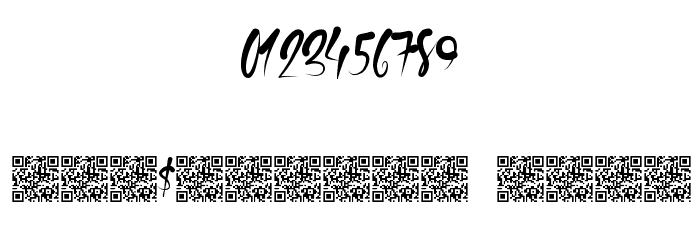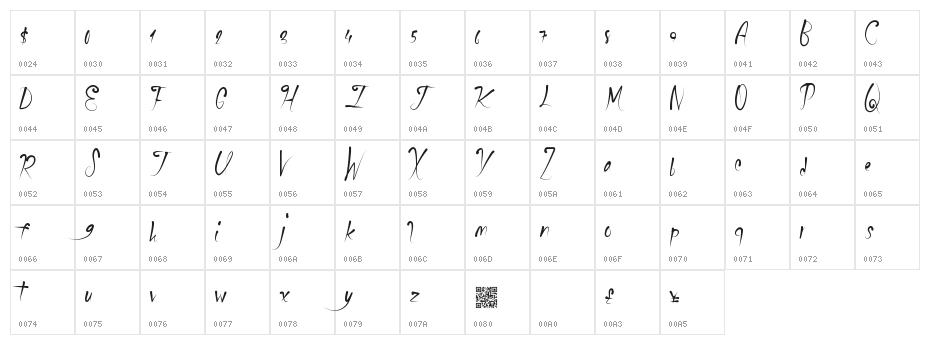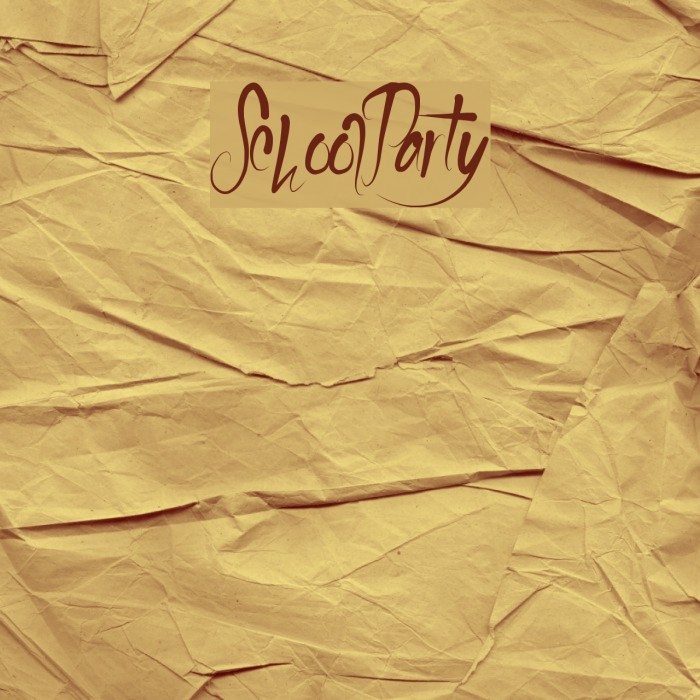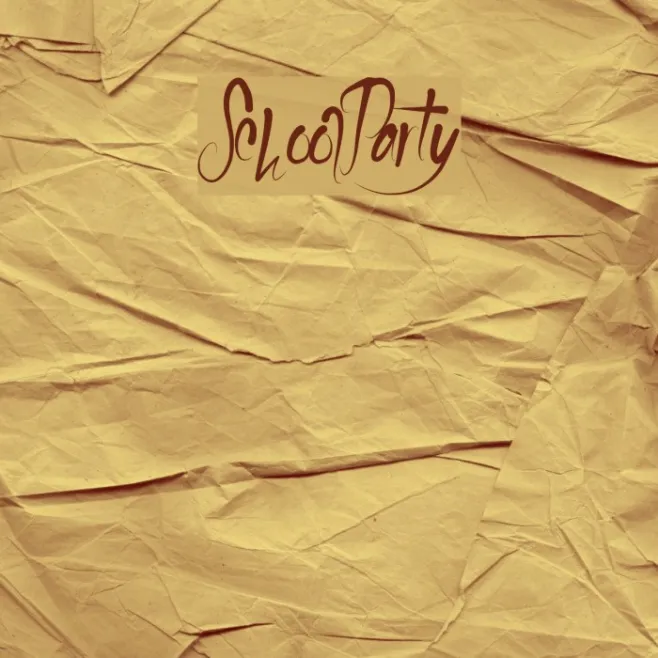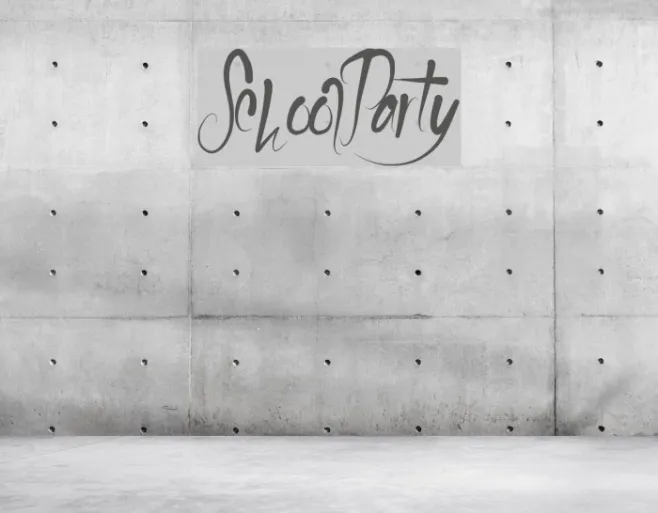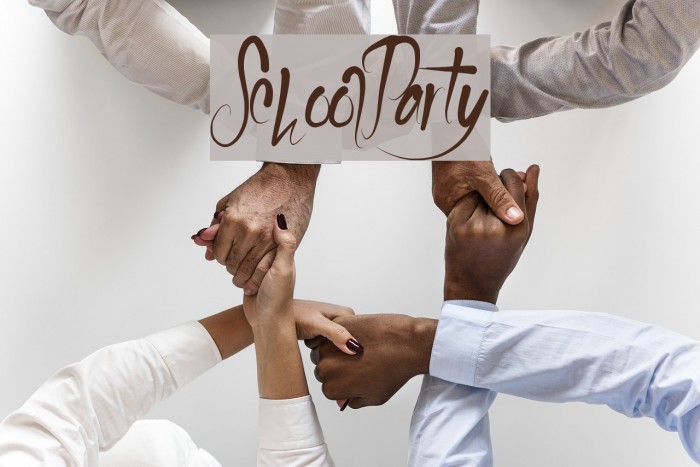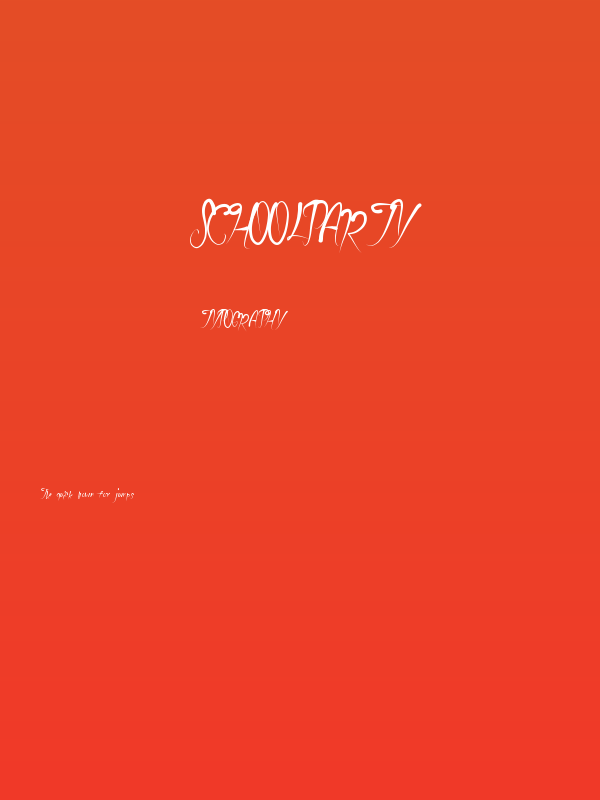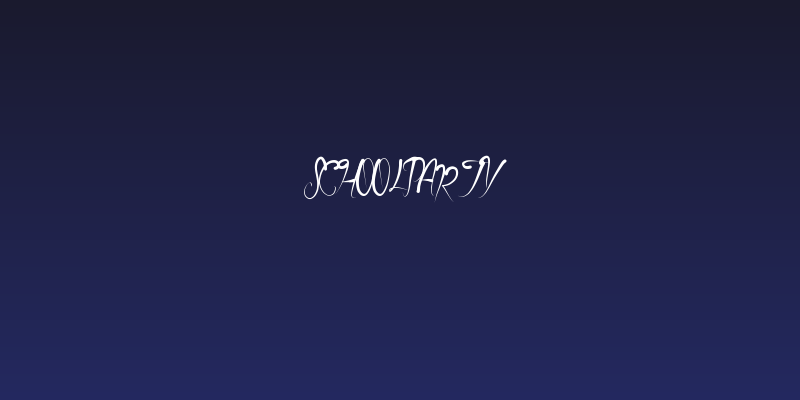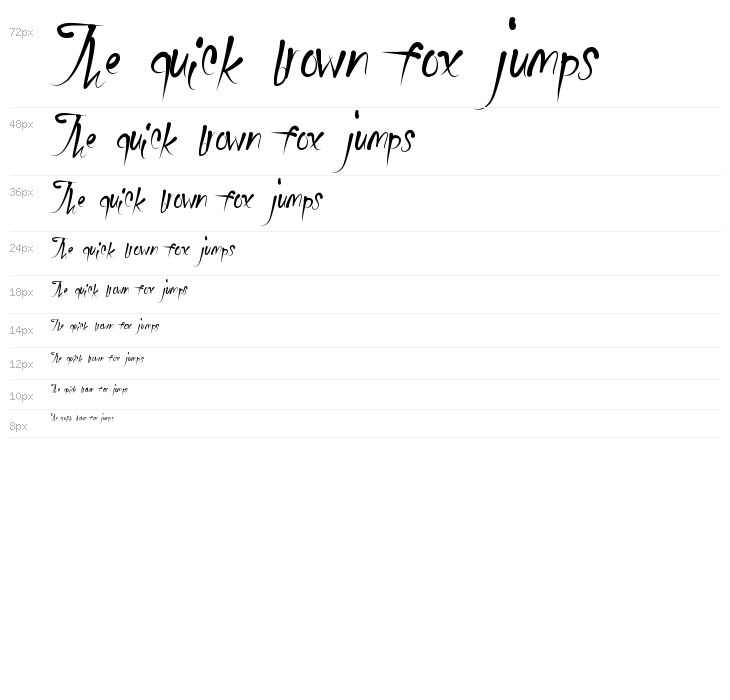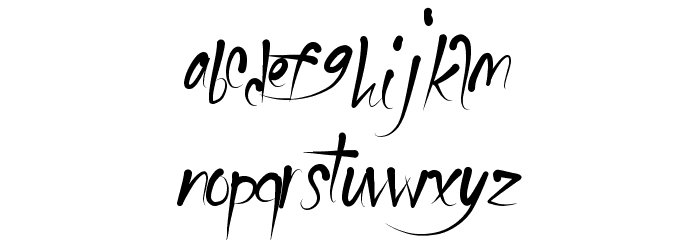
SchoolParty Font
SchoolParty Description
This font features a dynamic and flowing script style, characterized by its elegant and artistic curves. The uppercase letters are bold and expressive, with a distinct flair that adds a sense of movement and energy. The lowercase letters maintain a cohesive style, offering a smooth transition between characters. Numbers are consistent with the overall design, providing a harmonious look. The special characters are creatively integrated, enhancing the font's decorative appeal. This font is ideal for projects that require a touch of sophistication and creativity.
Use CaseLogos, Invitations, Artistic projects
Proposed ProjectsIdeal for wedding invitations, greeting cards, branding, and artistic posters.